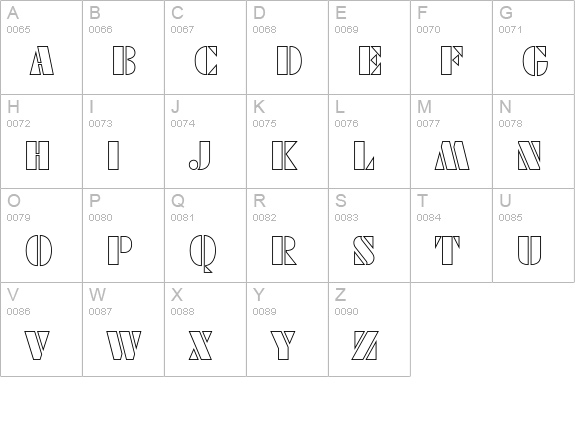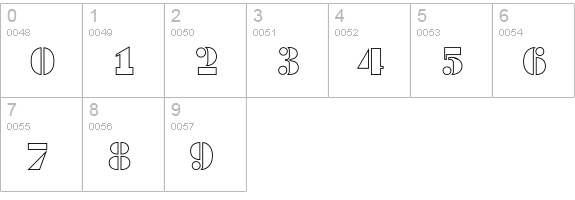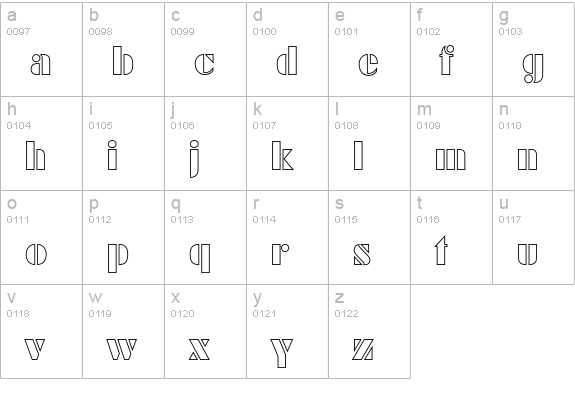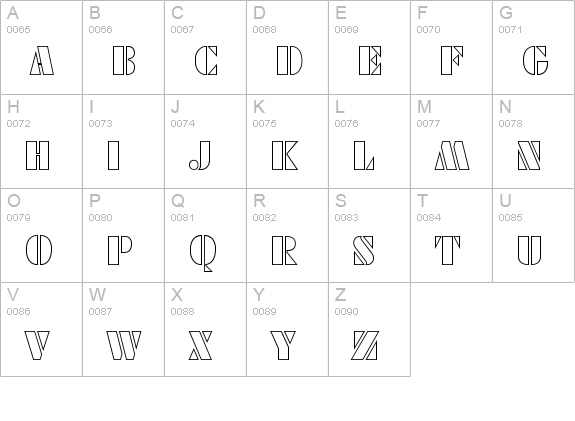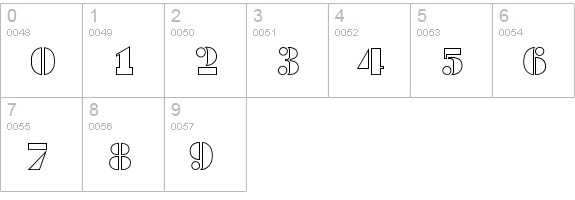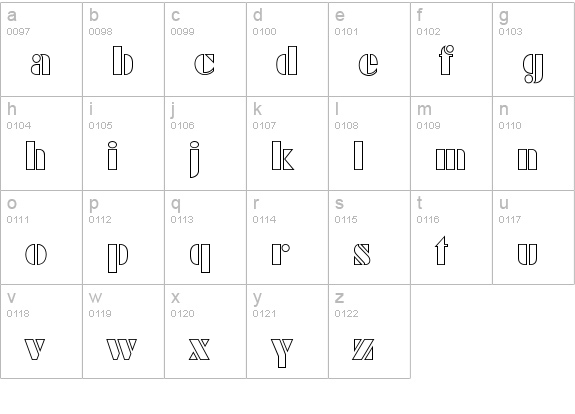
Dekoblack-Open is a modern and sleek display font that is perfect for making a bold statement in your projects. This typeface combines sharp edges and clean lines to create a stylish and eye-catching look. Whether you are designing a logo, poster, or website, Dekoblack-Open is sure to grab attention and leave a lasting impression. What makes Dekoblack-Open even better is that it is completely free to download at FontsMarket.com. This means you can access this stunning font without any cost, making it a valuable resource for designers and creatives looking to elevate their work. Don't miss out on the opportunity to add Dekoblack-Open to your font collection and take your designs to the next level.